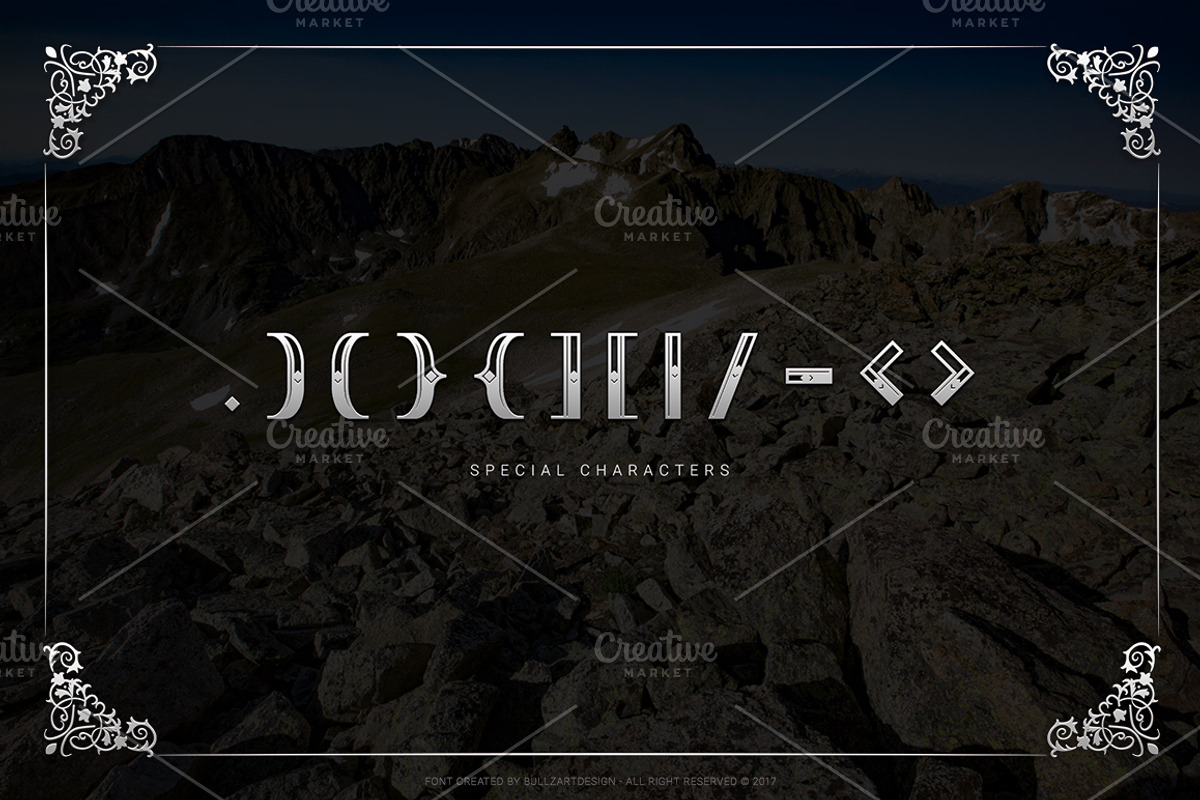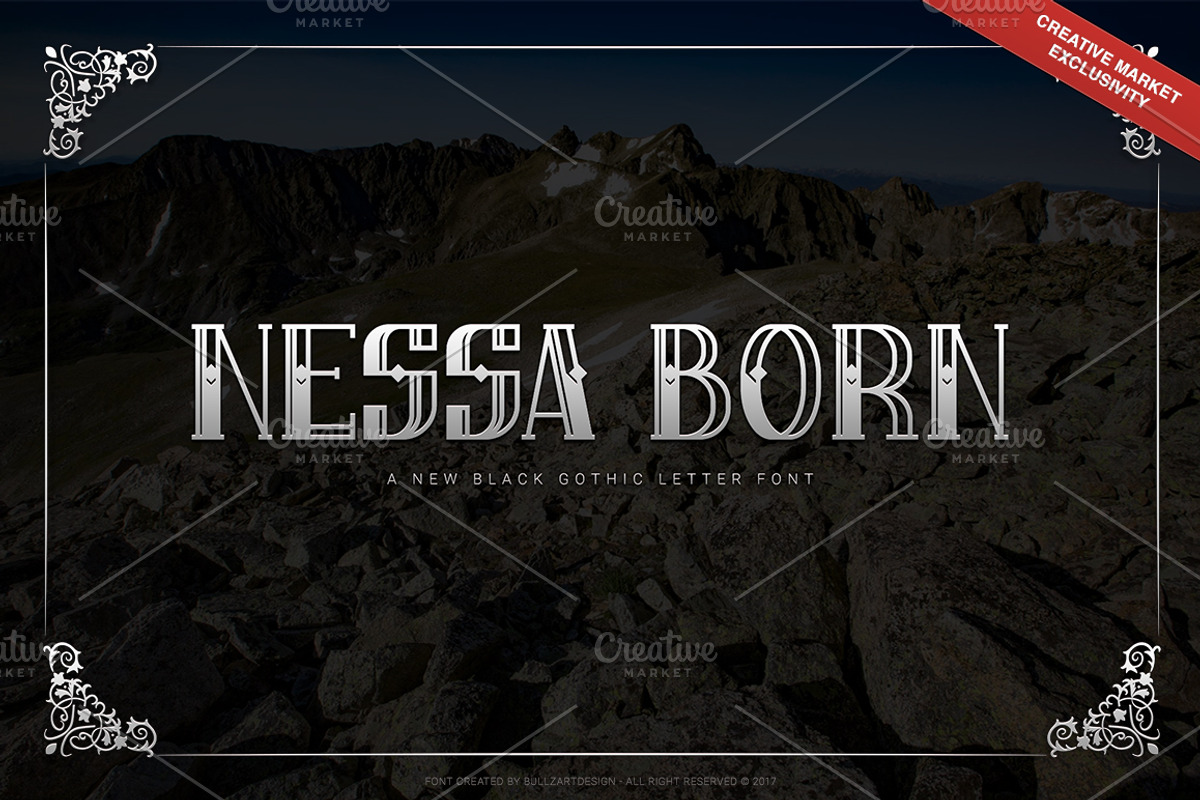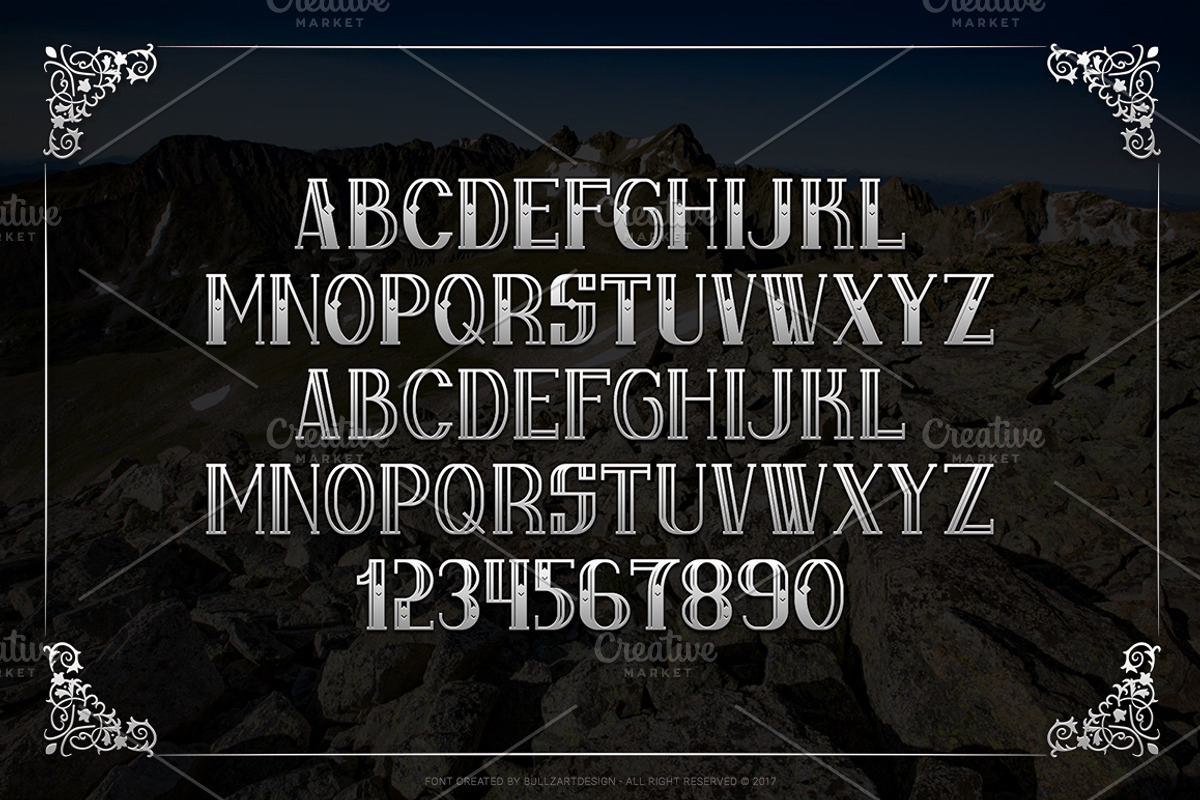
Nessa Born - Black Label Font
Nessa Born - Black Letter
Why Nessa Born - Black Label Font is worth a look
Nessa Born - Black Label Font by 6Track fits naturally into Branding, posters, packaging, typography.